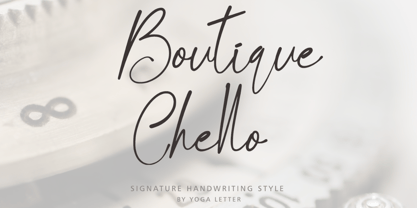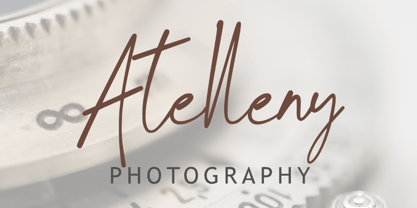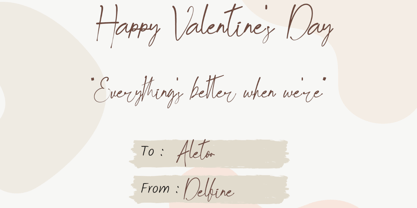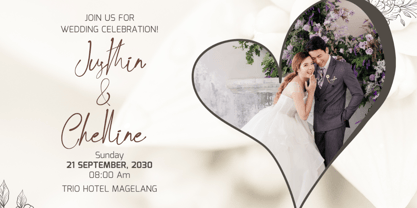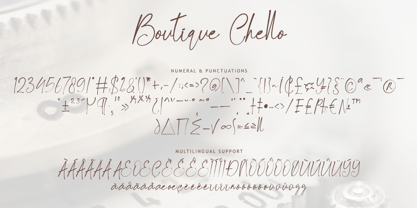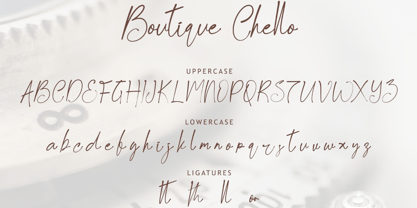
Boutique Chello
by Yoga Letter
The Boutique Chello Font Family was designed by Isroni Yoga Prasetya and published by Yoga Letter. Boutique Chello contains 1 styles.
"Boutique Chello" is a signature handwritten font. It comes with capital letters, lowercase letters, signature, numbers, punctuation, and multilingual support. Perfect for invitations, weddings, Christmas, winter, Valentine's, birthdays, Thanksgiving, posters, summer, spring, and more.